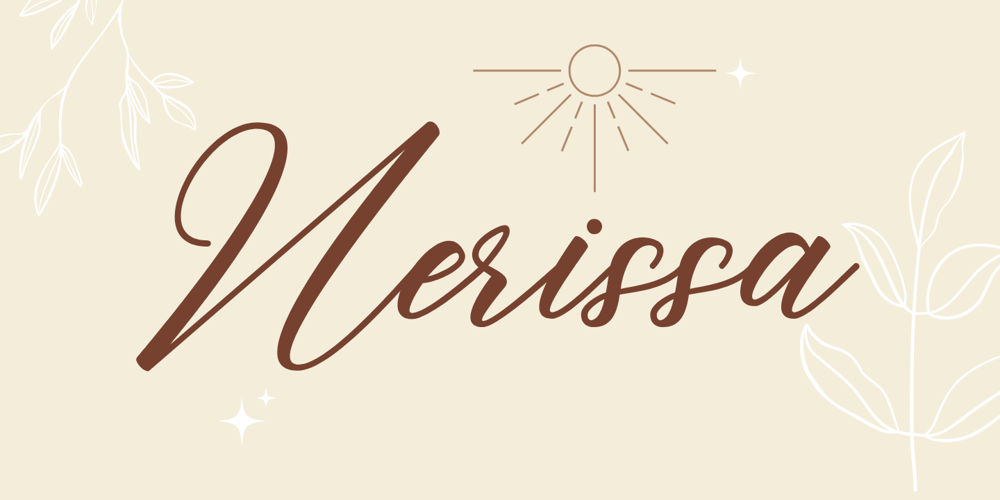
Narissa Script
Narissa Script font
Narissa Script Font Family was designed by khaidir and published by Gatype. Narissa Script contains 1 styles and family package options. Narissa Script is a modern and dynamic script font,The characters in Narissa Script feature graceful forms with curved terminals, creating the impression of elegant yet energetic handwriting. It is perfect for branding, logos, invitations, or design projects that aim to convey a casual yet professional vibe. Linda Script exudes a light, modern feel, with subtle contrasts in each stroke, making it easy to read while maintaining a bold artistic appearance.